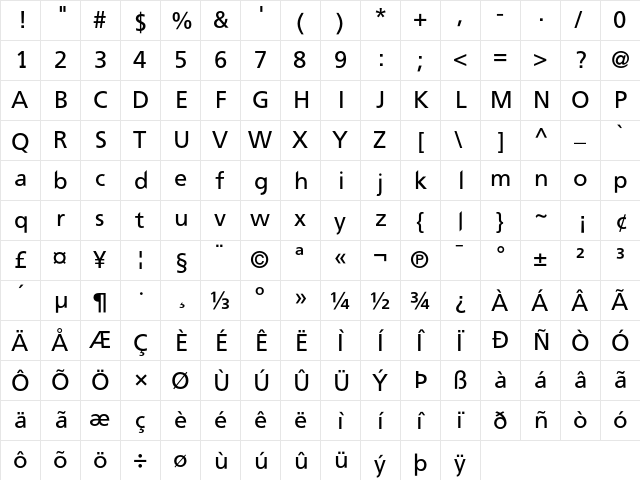
FreewayRoman1 Regular
Design Context for FreewayRoman1 Typeface
FreewayRoman1 takes a measured approach to typography — its balanced proportions and neutral character make it a reliable workhorse for both digital and print work.